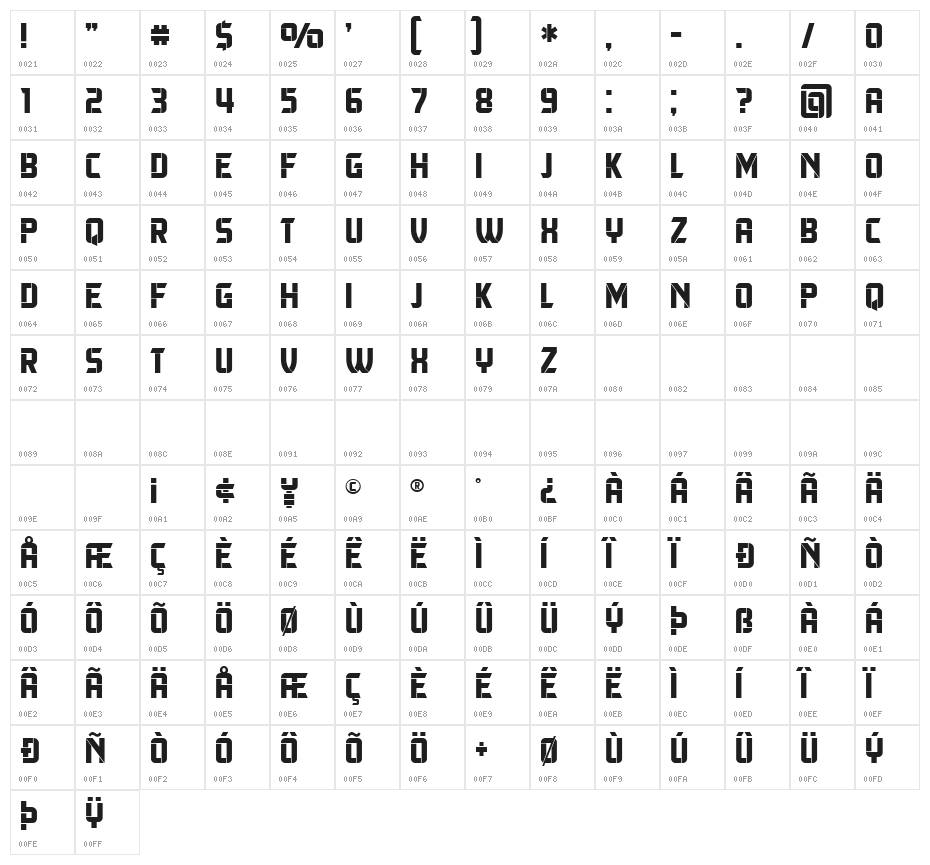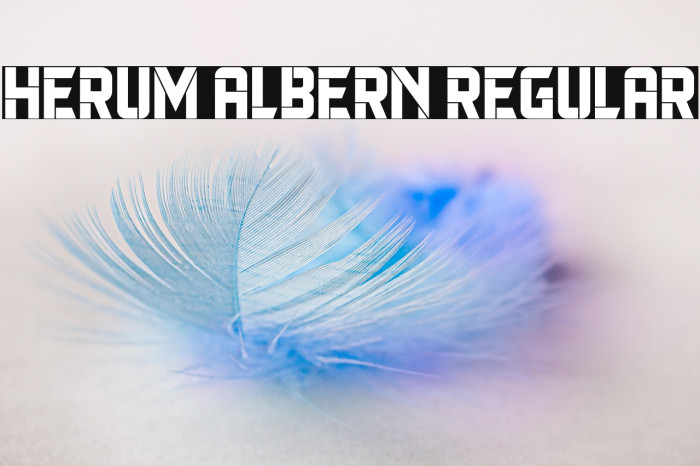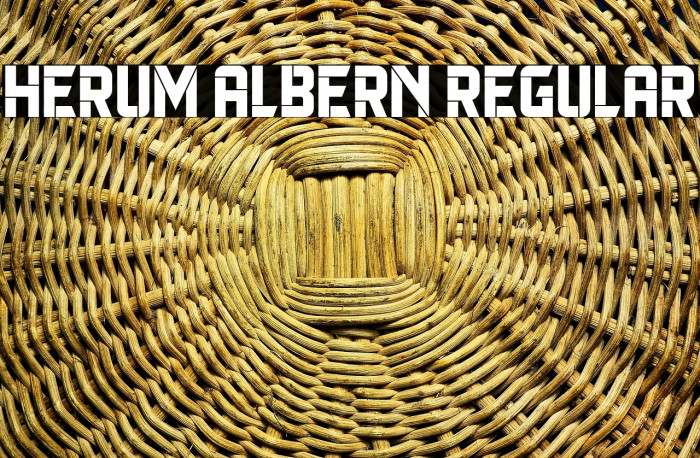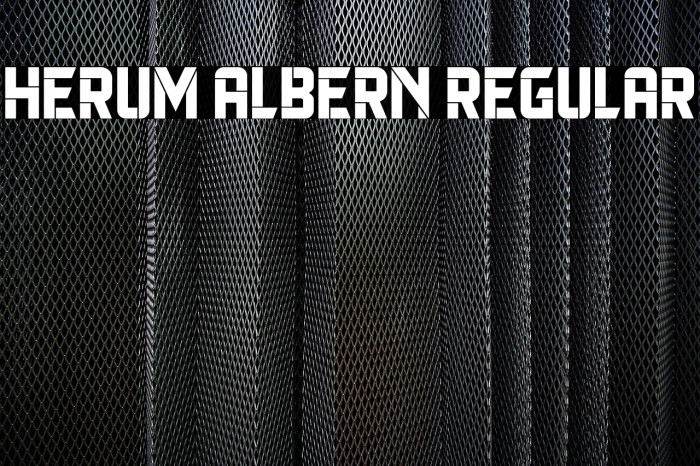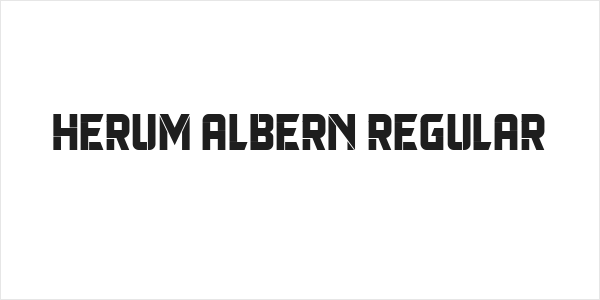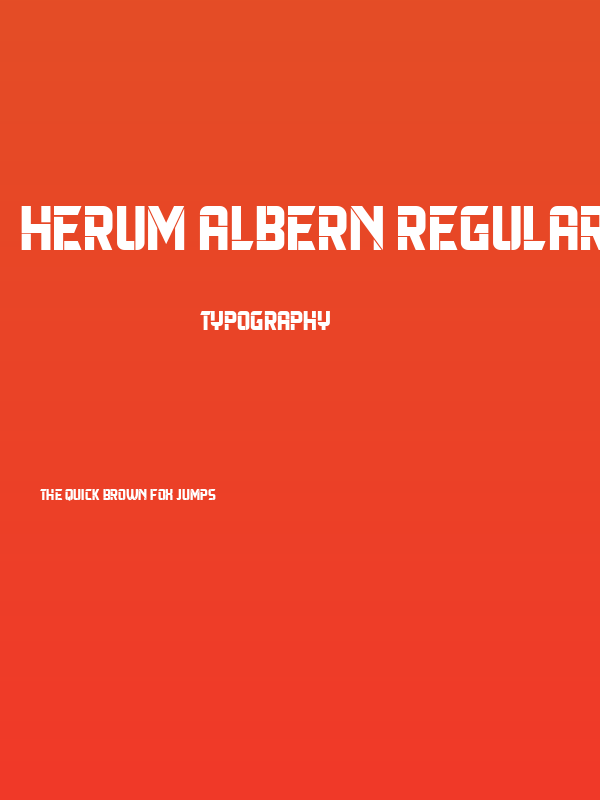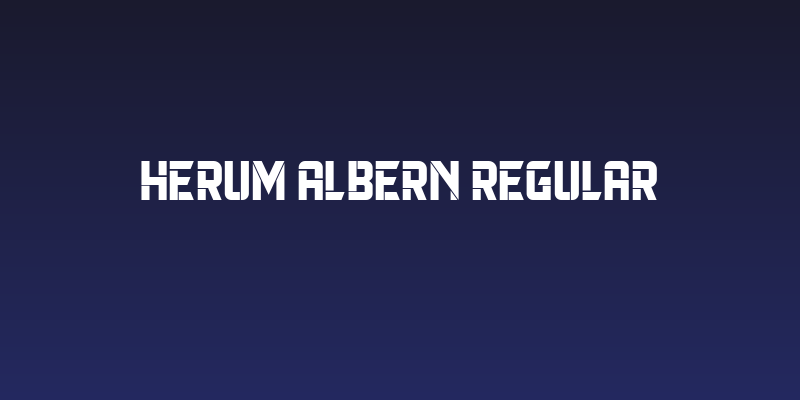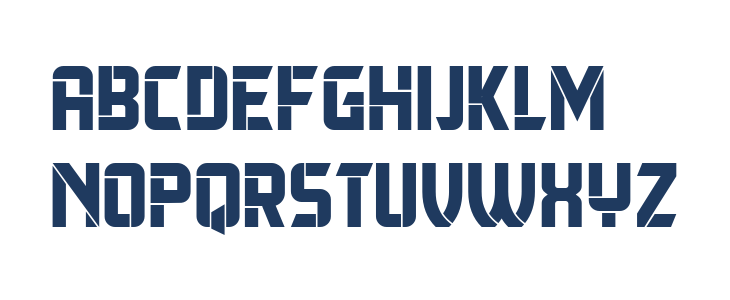
Herum Albern Regular Font
Herum Albern Regular Description
This font presents a bold and striking appearance with its geometric and angular design. Each character is crafted with sharp edges and a futuristic style, making it stand out with a unique, almost stencil-like quality. The uppercase letters are particularly prominent, with a consistent thickness throughout, giving a sense of uniformity and strength. The numbers and special characters maintain this boldness, ensuring a cohesive look across all glyphs. This font is ideal for projects that require a modern and impactful aesthetic.